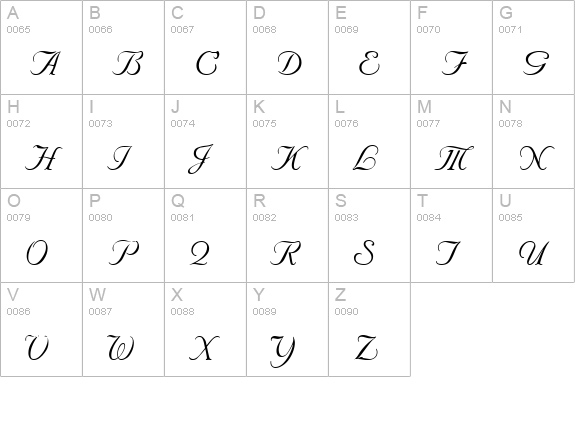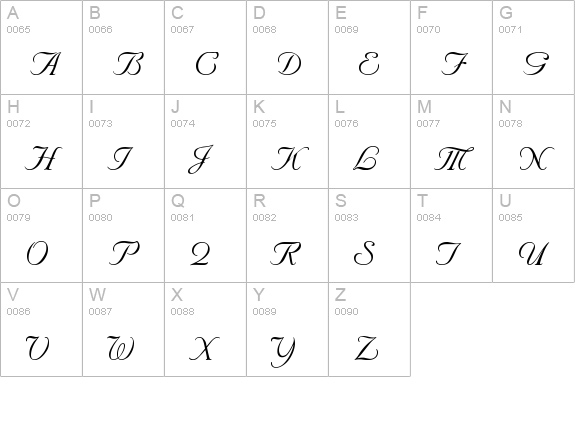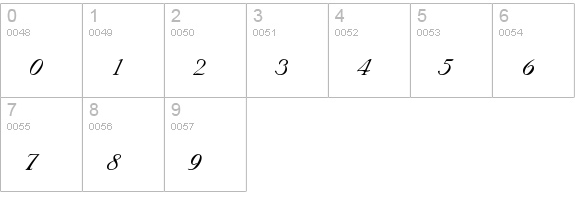
Michael Font Details
Michael font is a modern and stylish typeface that exudes elegance and sophistication. With its sleek lines and clean design, this font is perfect for a wide range of design projects, from branding to editorial design. The versatility of Michael font allows it to be used in various contexts, adding a touch of class to any project. The best part about Michael font is that it is completely free to download at FontsMarket.com. This means that you can easily access this high-quality font without any cost, making it a valuable resource for designers and creatives looking to elevate their work. Don't miss out on the opportunity to add Michael font to your collection and enhance your projects with its timeless appeal.